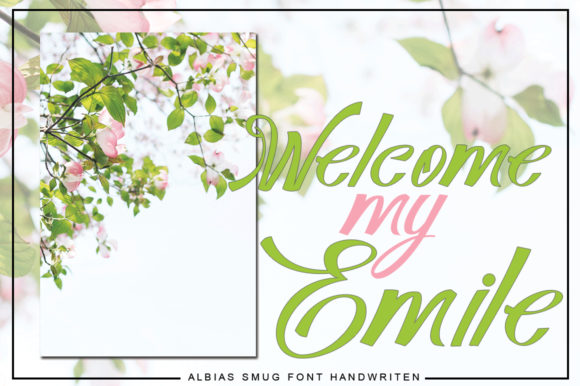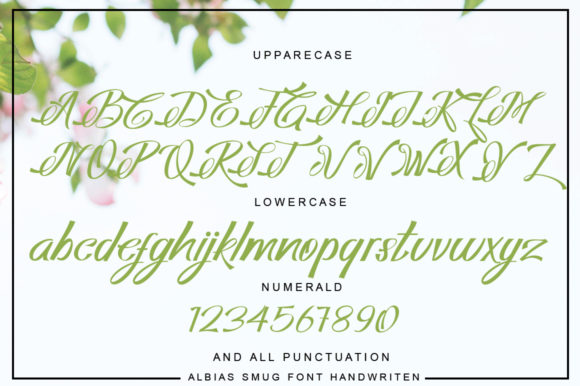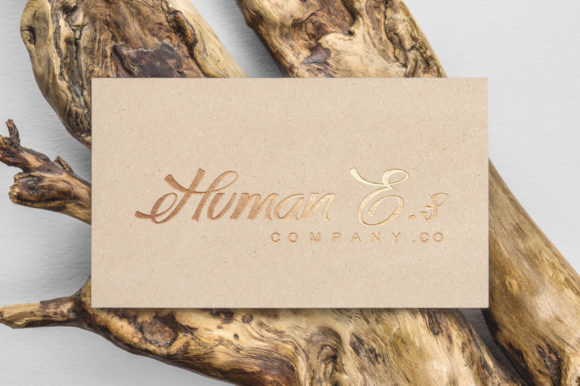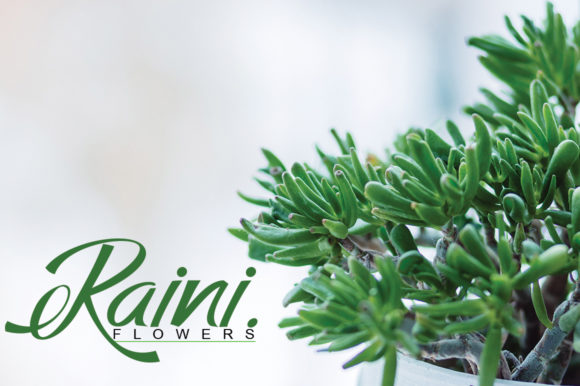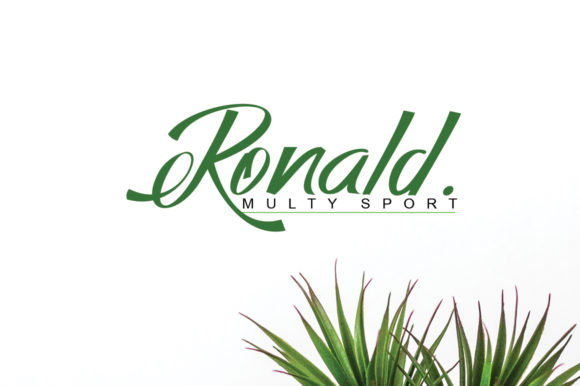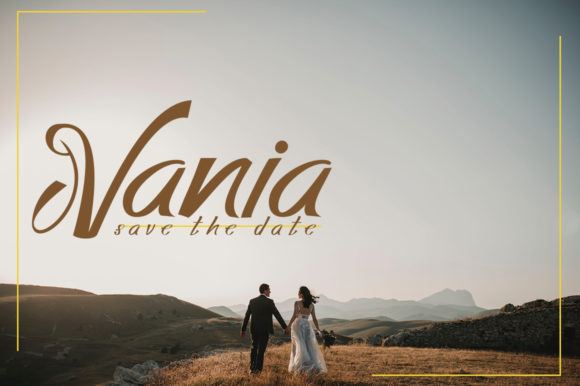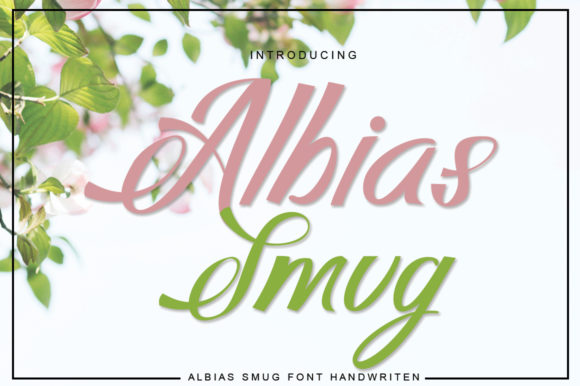
Introducing Albias Smug Font: The Playful Script Font for Creative Designs
Are you tired of using the same old fonts in your designs? Do you want to add a touch of playfulness and creativity to your projects? Look no further than Albias Smug Font, a cute script font that’s perfect for designers and crafters who want to make their designs stand out.
What is Albias Smug Font?
Albias Smug Font is a modern script font that’s designed to bring a sense of fun and playfulness to your designs. With its unique and quirky letterforms, this font is sure to capture the attention of your audience and leave a lasting impression.
Whether you’re designing a logo, creating a social media graphic, or crafting a handmade project, Albias Smug Font is the perfect choice. Its versatility and charm make it suitable for a wide range of design projects, from children’s party invitations to branding materials for businesses.
Features of Albias Smug Font
So, what makes Albias Smug Font so special? Here are just a few of its key features:
- Playful and Cute: Albias Smug Font has a distinctly playful and cute feel that’s sure to delight your audience.
- Unique Letterforms: Each letterform in Albias Smug Font has been carefully crafted to be unique and quirky, making it perfect for designs that need a bit of personality.
- Versatile: Whether you’re designing a digital project or a handmade craft, Albias Smug Font is the perfect choice.
- Easily Readable: Despite its playful nature, Albias Smug Font is still easily readable, making it perfect for designs that need to communicate a message.
Uses for Albias Smug Font
So, what can you use Albias Smug Font for? The possibilities are endless! Here are a few ideas to get you started:
- Handmade Crafts: Use Albias Smug Font to add a personal touch to your handmade crafts, such as knitted items, jewelry, or ceramics.
- Digital Designs: Add a playful touch to your digital designs, such as social media graphics, blog posts, or email newsletters.
- Branding Materials: Use Albias Smug Font to create unique and memorable branding materials, such as logos, business cards, or brochures.
- Party Invitations: Create adorable party invitations for children’s birthday parties, baby showers, or other celebrations.
Tips for Using Albias Smug Font
Here are a few tips for getting the most out of Albias Smug Font:
- Use it Sparingly: While Albias Smug Font is playful and fun, it can be overwhelming if used too much. Use it sparingly to add a touch of personality to your designs.
- Pair it with Other Fonts: Experiment with pairing Albias Smug Font with other fonts to create a unique and interesting contrast.
- Experiment with Colors: Have fun with different colors and textures to add depth and interest to your designs.
Albias Smug Font is a versatile and playful script font that’s perfect for designers and crafters who want to add a touch of creativity to their designs. With its unique letterforms, cute feel, and easily readable text, this font is sure to delight your audience and make your designs stand out.